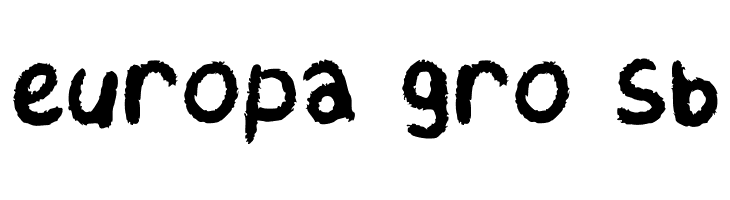
( Fonts by Hanoded )
A textured, hand-drawn font with a rustic and organic appearance.
( Fonts by Hanoded )
A bold, brush-stroke font with an energetic and artistic style.
( Fonts by Hanoded )
A bold, hand-painted style font with dynamic brush-like strokes.
( Fonts by David Kerkhoff - www.hanodedphotography.com )
A bold, playful, and irregular font with a hand-drawn, vintage aesthetic.
( Fonts by David Kerkhoff - www.hanodedphotography.com )
A bold, playful font with chunky, irregular shapes and a whimsical style.
( Fonts by David Kerkhoff - www.hanodedphotography.com )
A bold, gothic-style font with intricate details and a medieval flair.
( Fonts by David Kerkhoff - www.hanodedphotography.com )
A bold, hand-drawn font with a textured, sketch-like appearance.
( Fonts by Hanoded )
A playful, hand-drawn font with bold, rounded characters and whimsical gnome illustrations.
( Hanoded - David Kerkhoff - www.hanodedfonts.com )
A whimsical, hand-drawn font with spiral embellishments and uneven strokes.
( Fonts by David Kerkhoff - www.hanodedphotography.com )
A bold, playful font with thick, blocky, and whimsical characters.
( Fonts by David Kerkhoff - www.hanodedphotography.com )
A playful, handwritten font with fluid, dynamic strokes and a casual feel.
( Fonts by Hanoded )
A bold, handwritten font with dynamic and energetic characters.
( Fonts by Hanoded )
A playful, hand-drawn font with a whimsical and organic style.
( Hanoded - David Kerkhoff - www.hanodedfonts.com )
A playful, handwritten font with a lively and informal style.
( Fonts by David Kerkhoff - www.hanodedphotography.com )
A chaotic, ink-splattered font with a raw, artistic style.
( Fonts by David Kerkhoff - www.hanodedphotography.com )
A dynamic, expressive handwritten font with fluid strokes.
( Hanoded - David Kerkhoff - www.hanodedfonts.com )
A dynamic, expressive handwritten font with fluid strokes.
( Fonts by Hanoded )
A playful, hand-drawn font with tall, narrow characters and whimsical symbols.
( Fonts by David Kerkhoff - www.hanodedphotography.com )
A chaotic, distressed font with jagged strokes and splattered ink effects.
( Fonts by Hanoded )
A playful, bold, and rounded font with a hand-drawn, cartoonish style.
( Fonts by David Kerkhoff - www.hanodedphotography.com )
A distressed, grunge-style font with a typewriter-like appearance.
( Fonts by Hanoded )
A whimsical, hand-drawn font with elongated, irregular strokes and playful elements.
( Hanoded - David Kerkhoff - www.hanodedfonts.com )
A playful, hand-drawn font with bold, irregular strokes and a whimsical style.